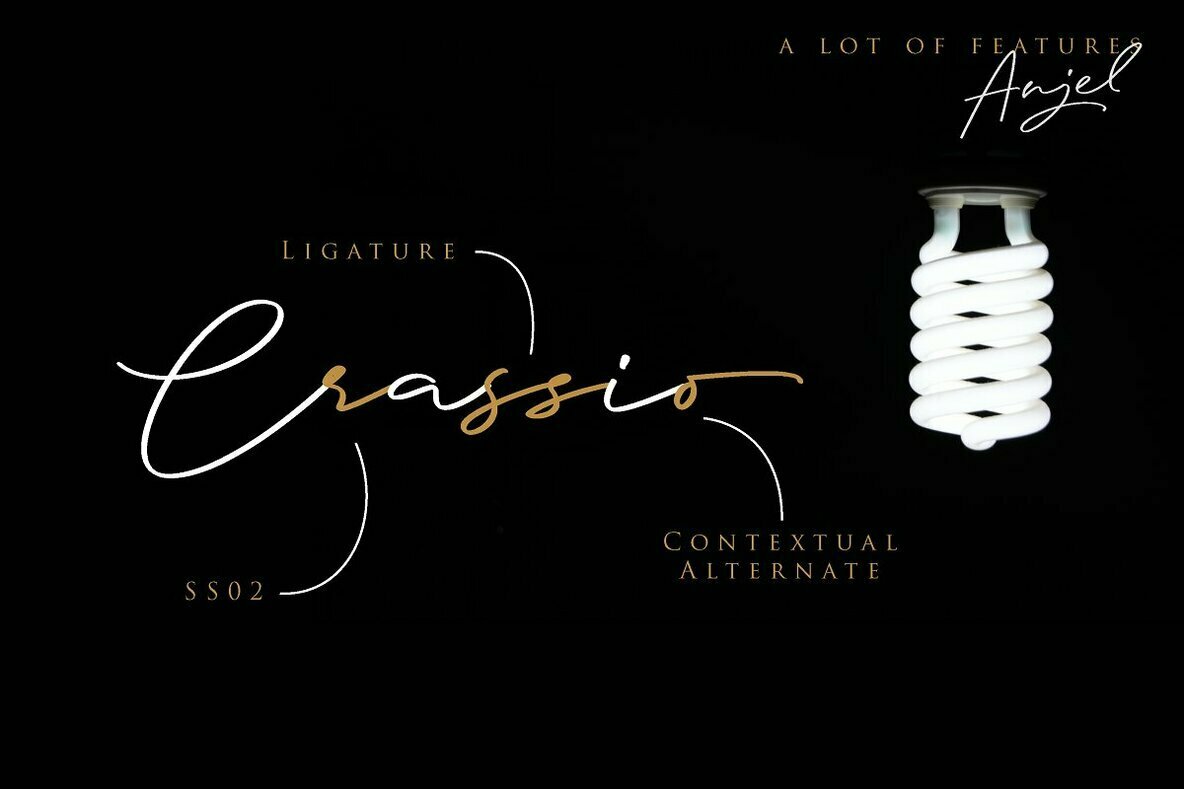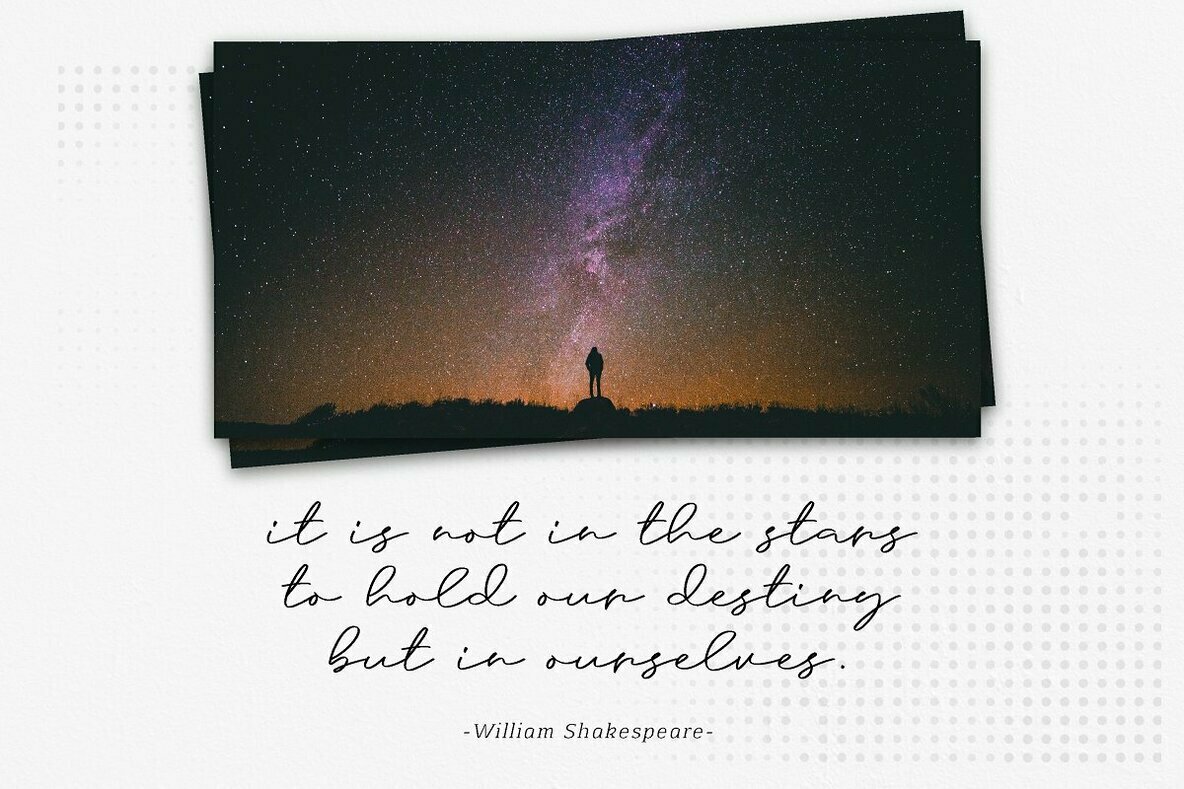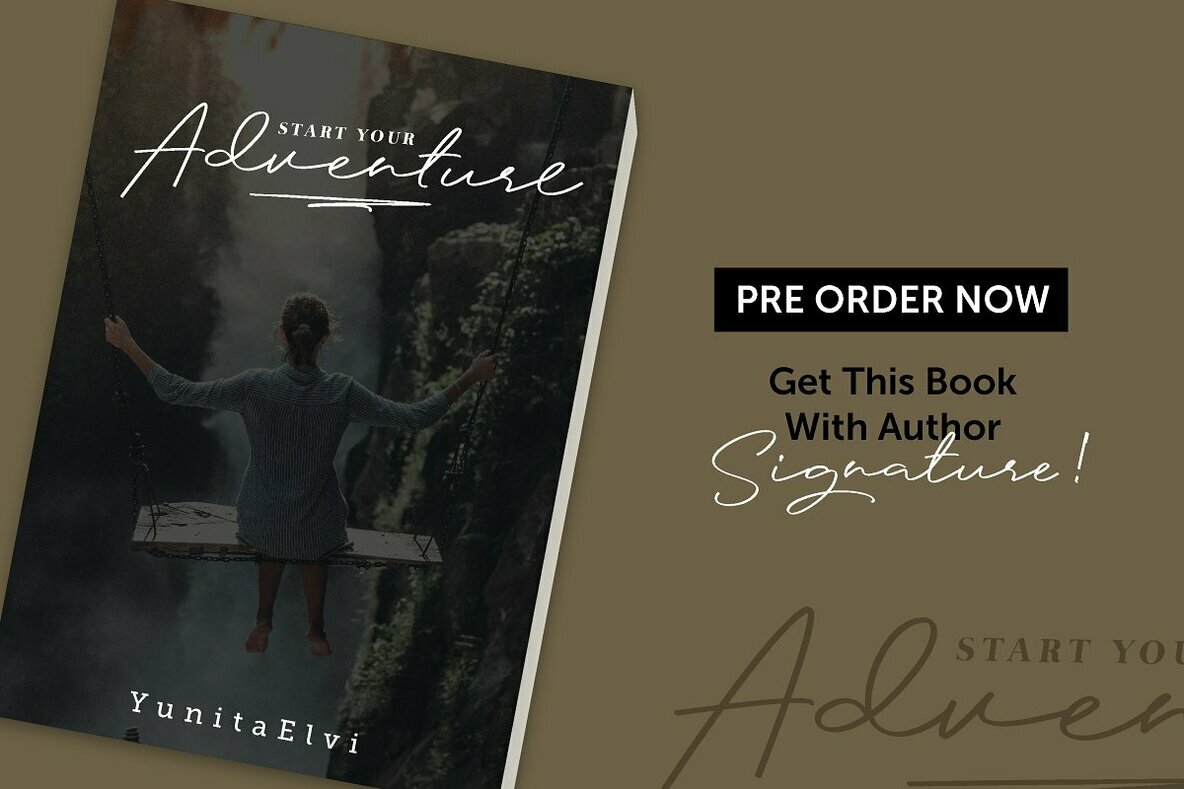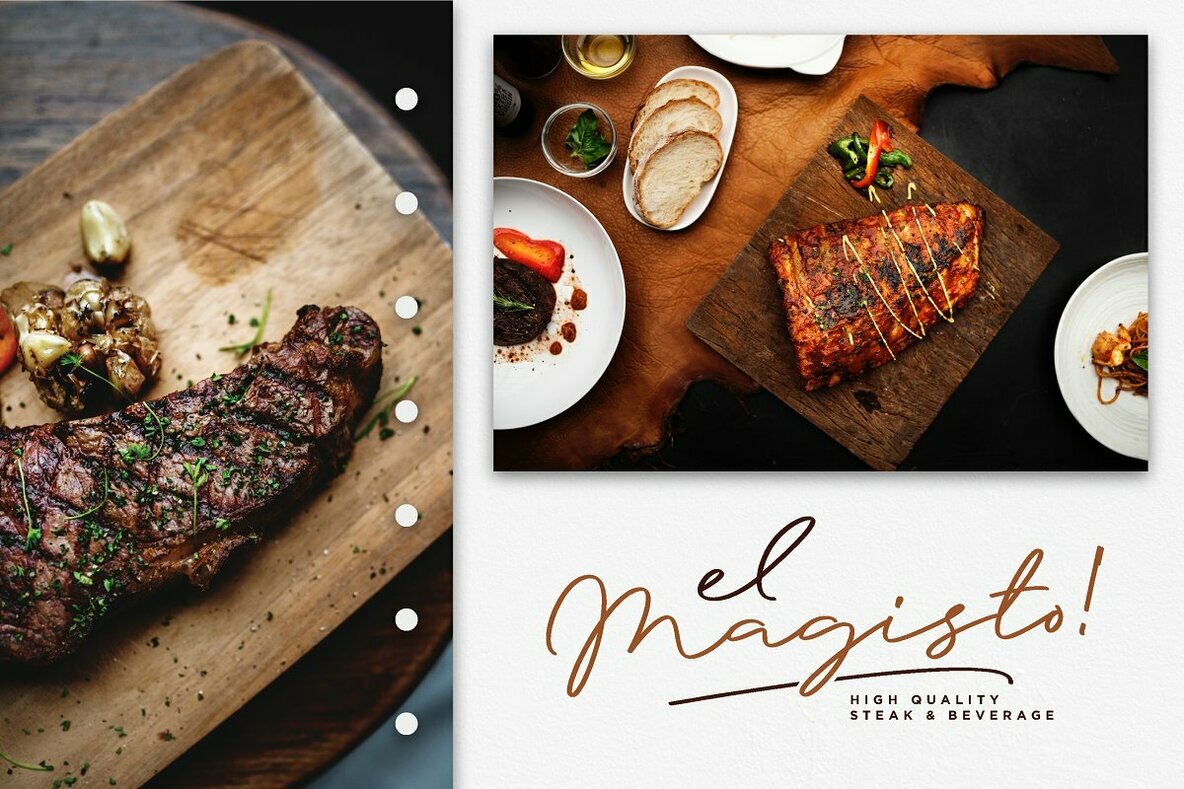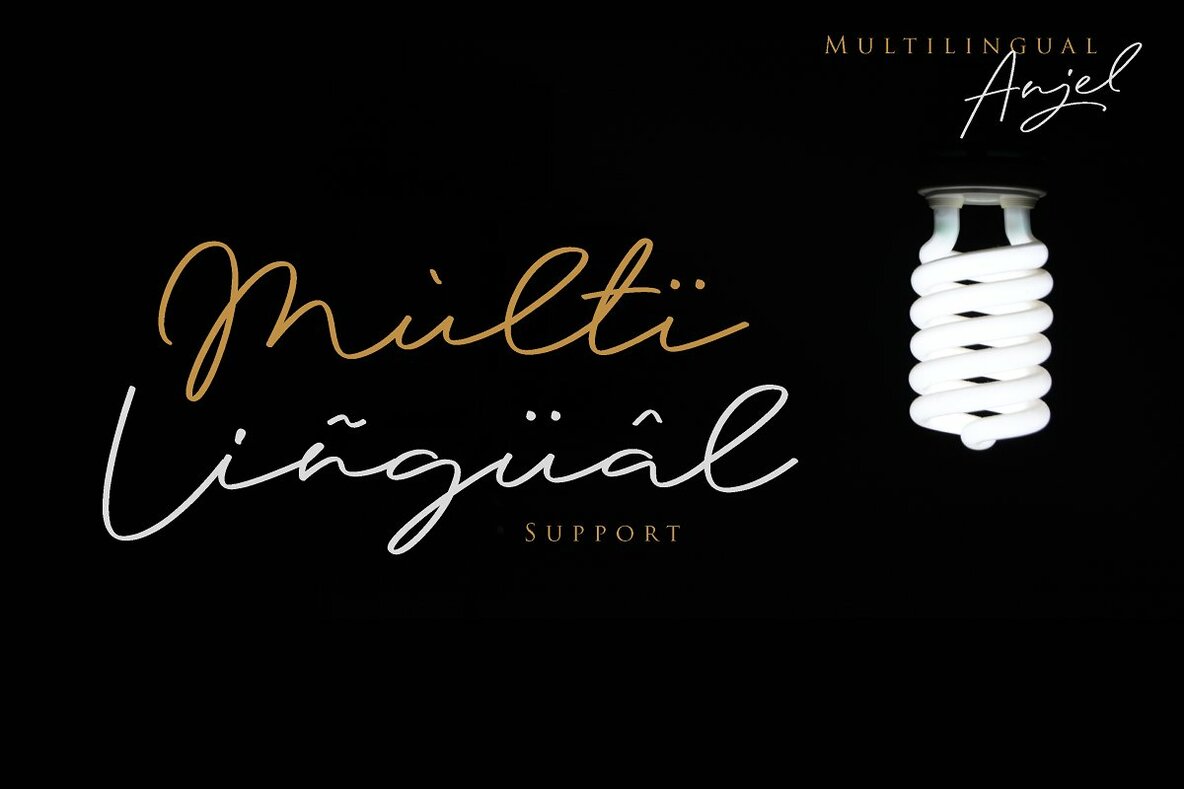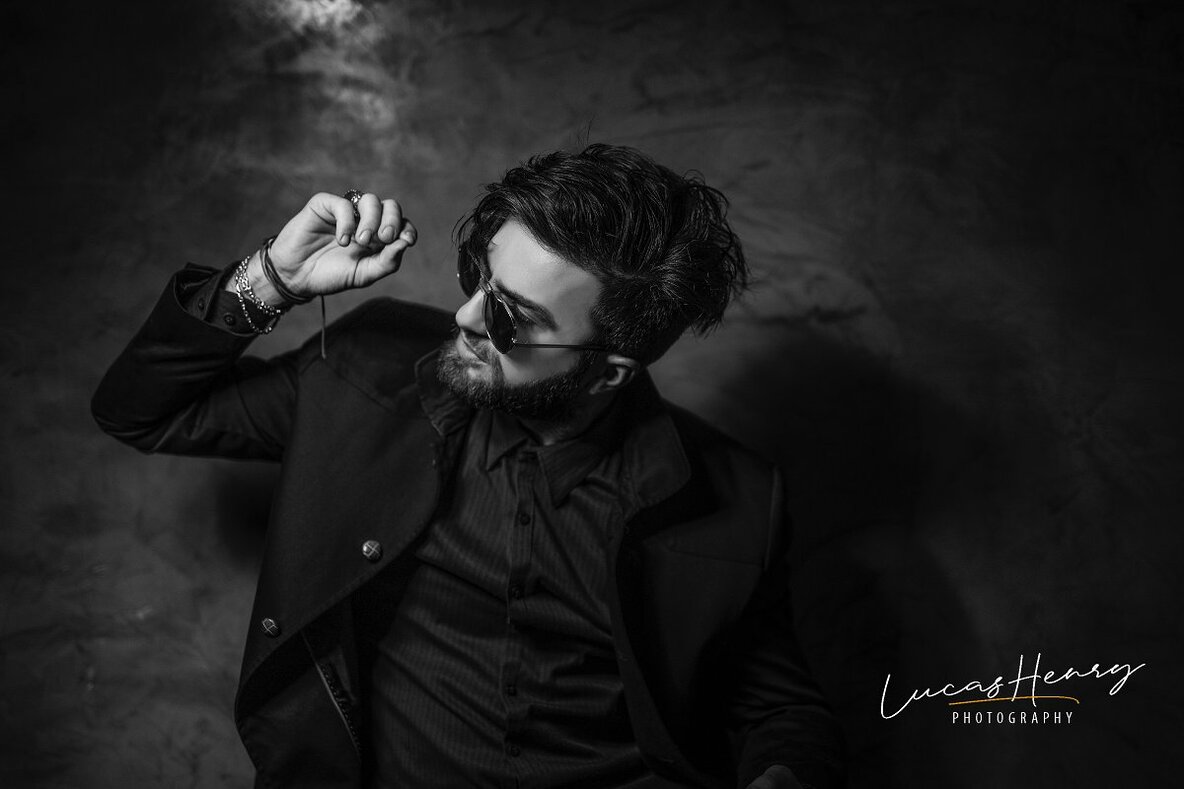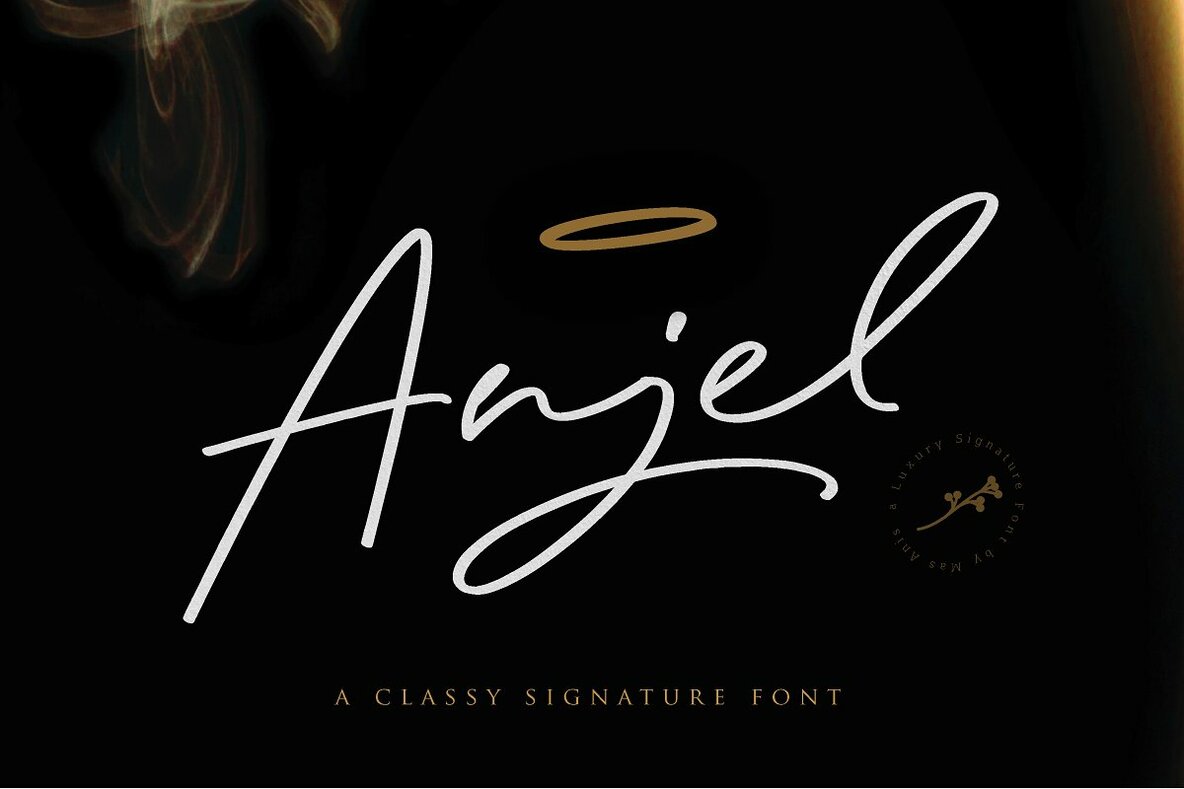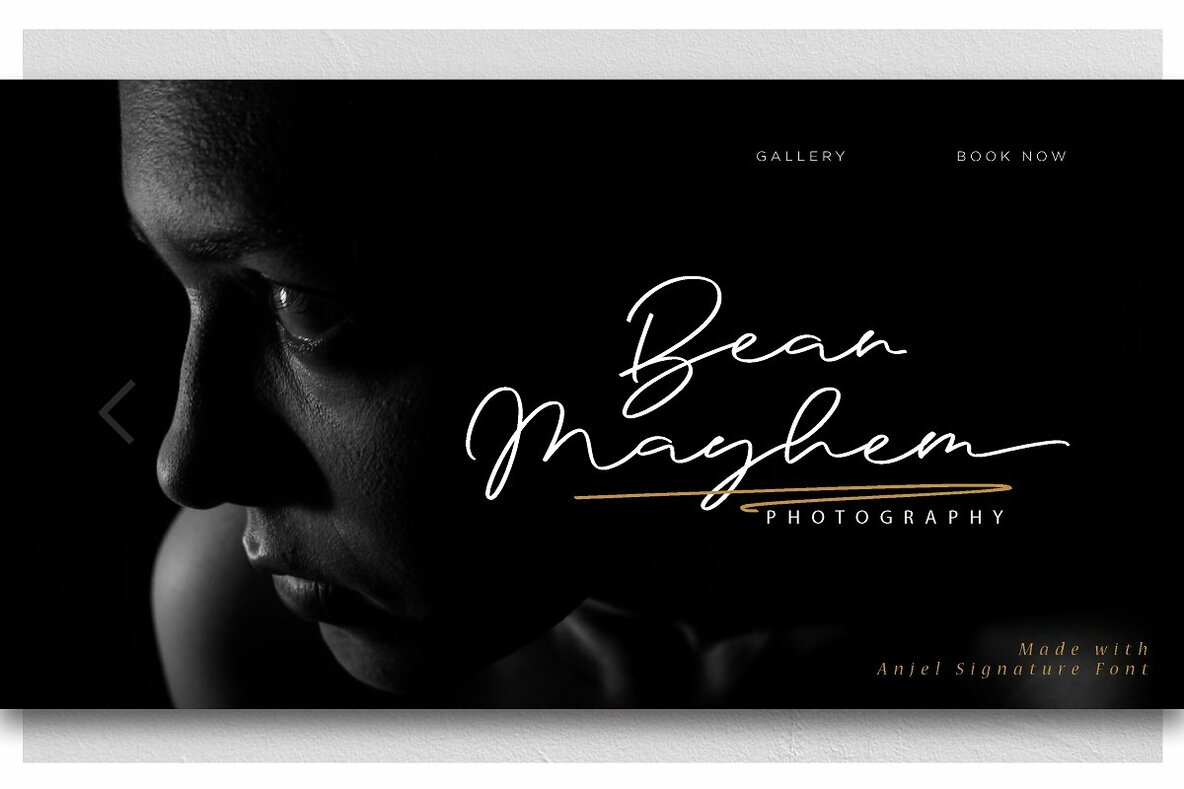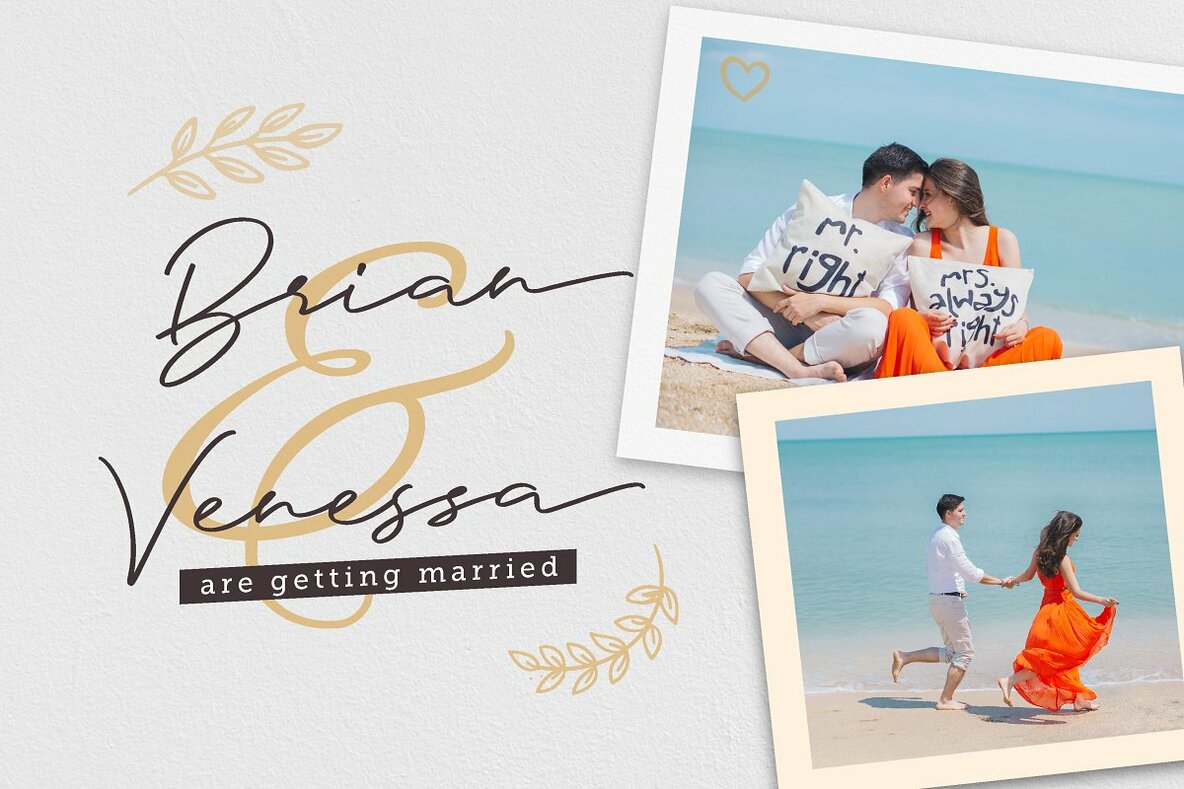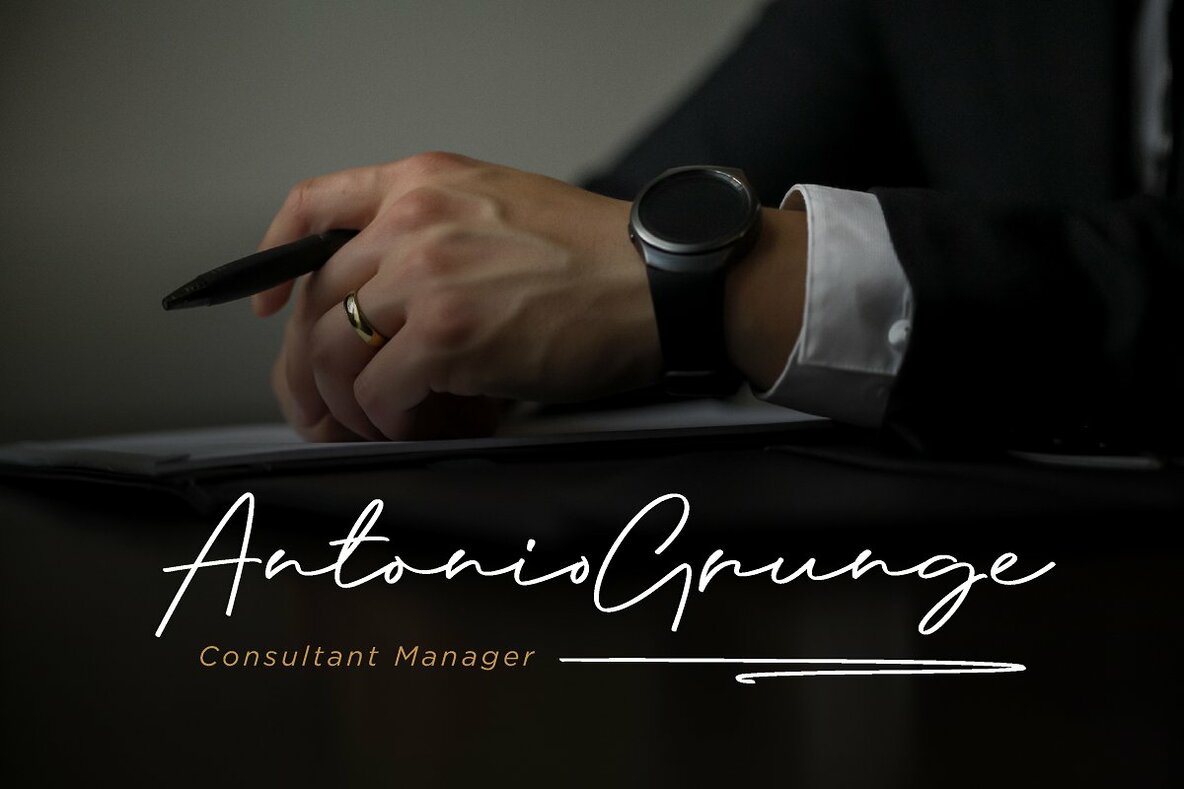
Anjel Font
Step into a world where elegance meets versatility with Anjel, a signature typeface designed to add a touch of sophistication to your creative projects. Crafted with a wealth of typographic elements, Anjel includes lowercase, uppercase, and symbols, supporting a wide array of languages. The typeface is enriched with myriad ligatures and is PUA encoded, ensuring ease of access to special characters. Created with meticulous attention, Anjel serves as an excellent choice for designers aiming to add a personal and distinctive touch to photography and other creative endeavors.Anjel: A Fashionable Signature Typeface
Exceptional Features